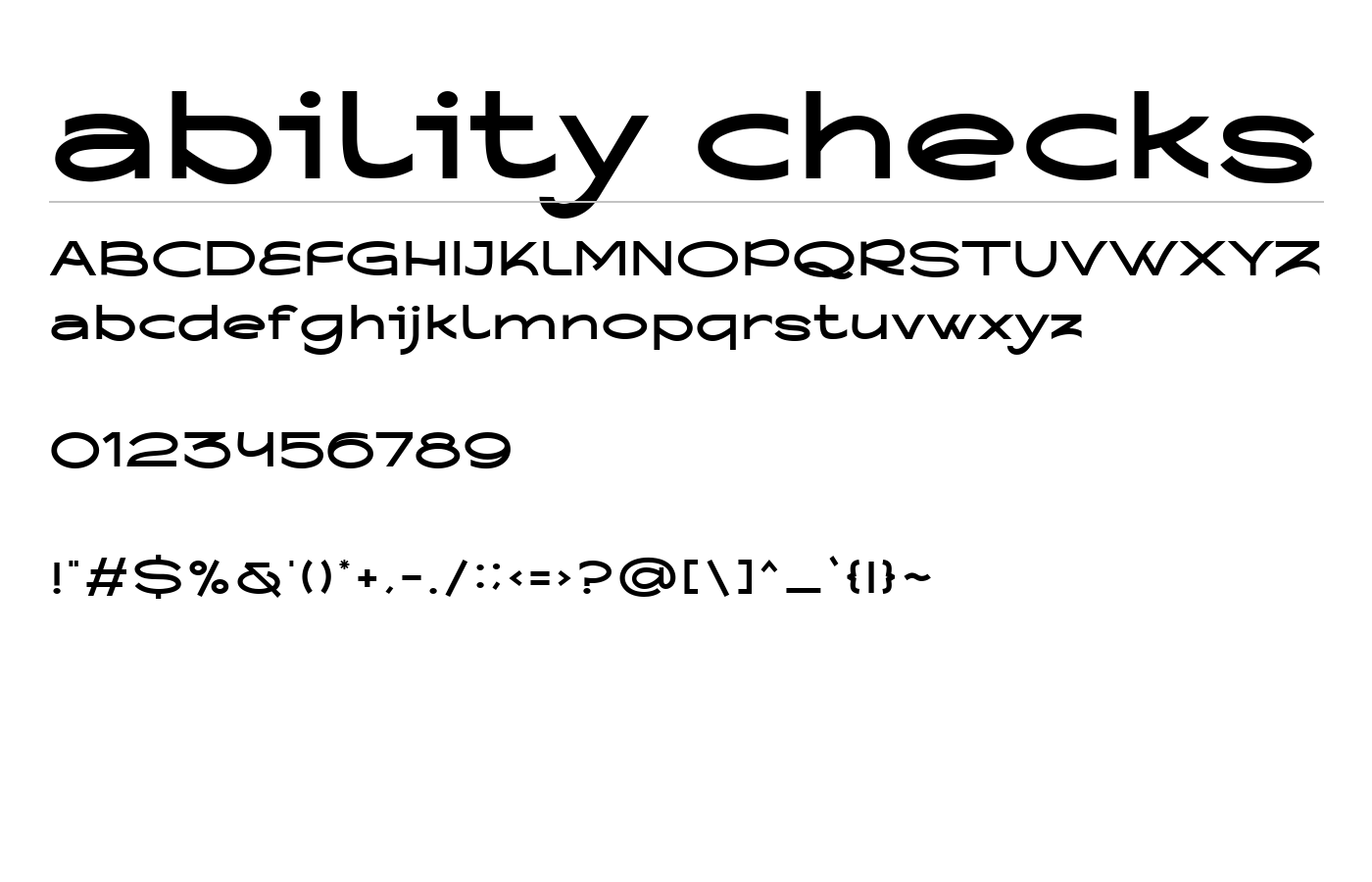
Ability Checks Font is a distinctive sans serif typeface with a geometric feel and medium weight, featuring clean, rounded letterforms and a moderately high x-height for clarity. Its unique character shapes and balanced stroke contrast give it a modern yet approachable personality, making it ideal for branding, headlines, and editorial use where a contemporary and friendly look is desired. This font works well in creative projects that require legibility combined with a subtle touch of individuality.
ability checks Font
About ability checks Font